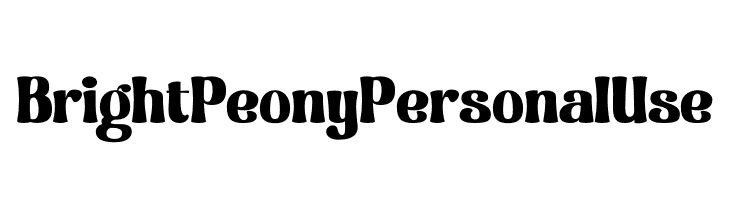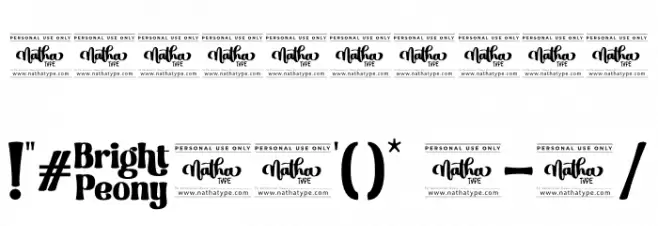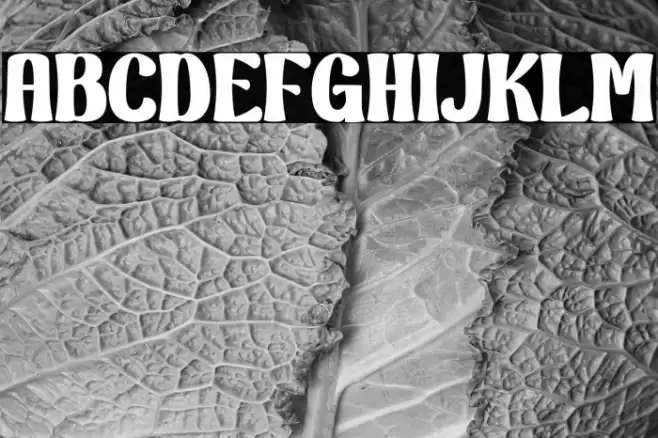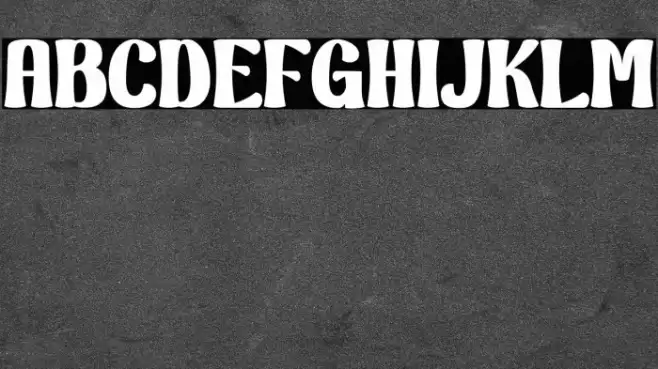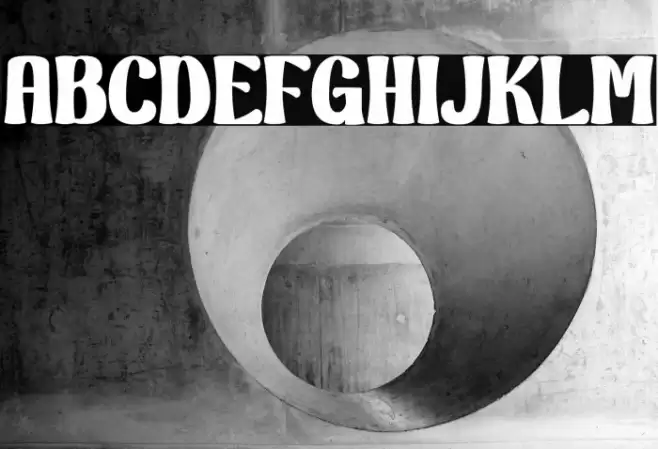
Bright Peony Personal Use Font
| 全体的なスタイル | Playful, Retro |
| おすすめプロジェクト | Ideal for children's books, playful branding, posters, and creative invitations. |